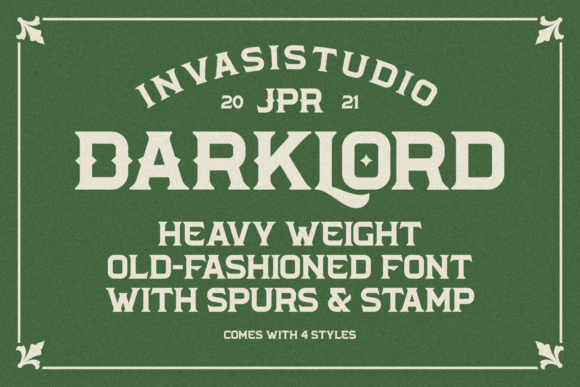
Journey back in time and capture the essence of nostalgia with Darkloard Font, a striking display font that oozes vintage charm. Inspired by the aesthetics of bygone eras, this bold and striking font adds an air of authenticity and timeless elegance to your creative projects. A product of Invasistudio's dedication to typographic excellence, Darkloard Font stands apart from the ordinary, captivating audiences with its unique character and undeniable charm.
Immerse yourself in the world of vintage typography and let your designs radiate with the allure of yesteryears. Ideal for crafting captivating T-shirts, Darkloard Font breathes life into your designs, evoking a sense of nostalgia and individuality that resonates with audiences. Its bold lines and distinctive curves add a touch of ruggedness that complements the vintage aesthetic, making every T-shirt a statement piece. Unleash your creativity and let your designs tell stories of forgotten times with Darkloard Font as your artistic companion.
With Darkloard Font, versatility knows no bounds. Experiment effortlessly across various design projects, from eye-catching logos and branding elements to captivating posters and flyers. Each letterform is meticulously crafted to evoke a sense of vintage grandeur, lending an air of sophistication to any project you undertake. Be it a retro-inspired website, an enchanting invitation, or a striking social media post, Darkloard Font seamlessly adapts, enhancing your designs with its timeless appeal.
Embrace the power of simplicity and let Darkloard Font elevate your designs to new heights. Its intuitive design ensures effortless use, allowing you to bring your creative visions to life seamlessly. Whether you're a seasoned designer seeking to expand your typographic horizons or a budding enthusiast looking to make a statement, Darkloard Font empowers you to create designs that captivate and inspire. Unlock the secrets of vintage typography and let your creativity flourish with Darkloard Font as your trusted ally.